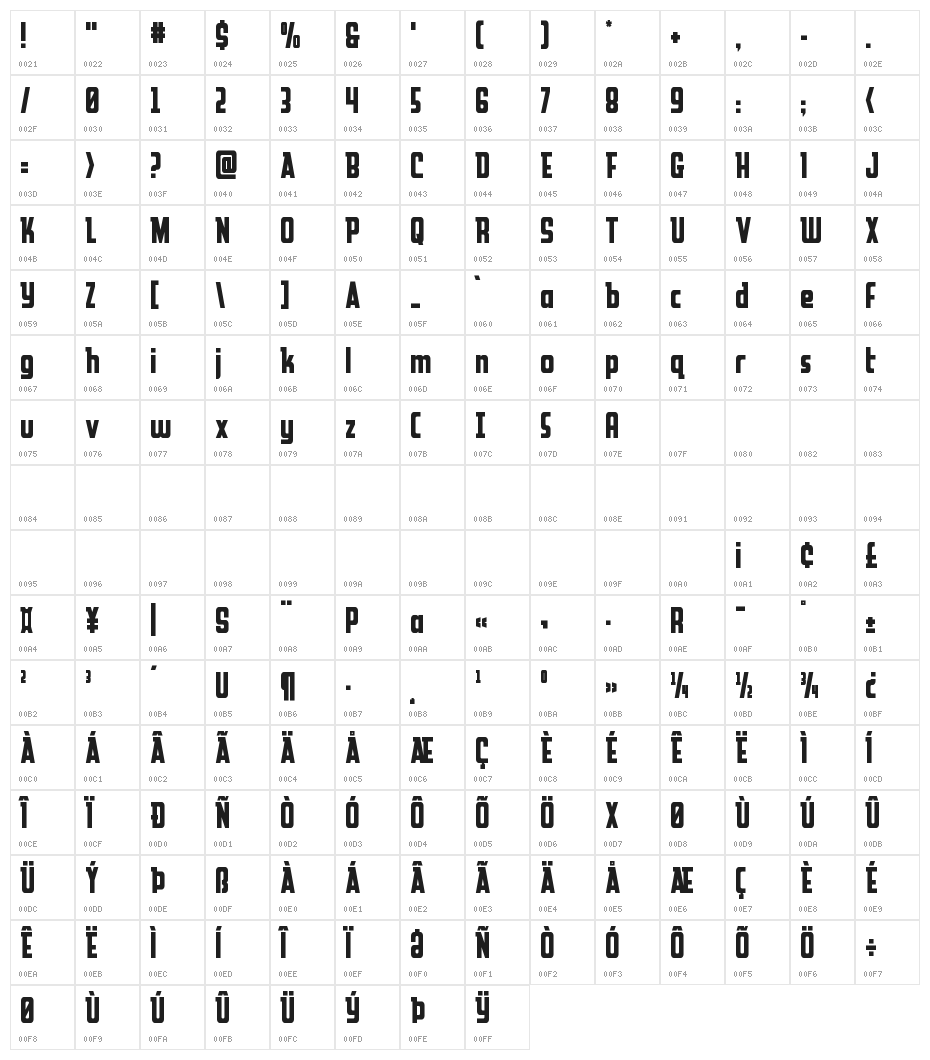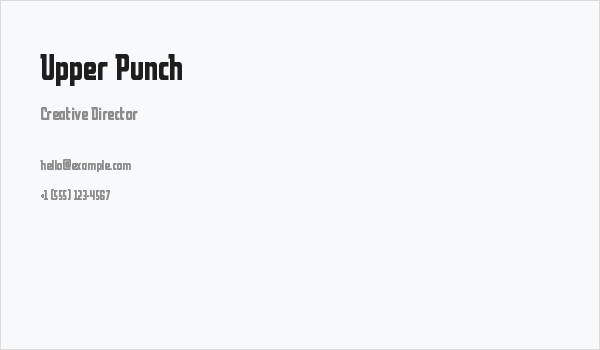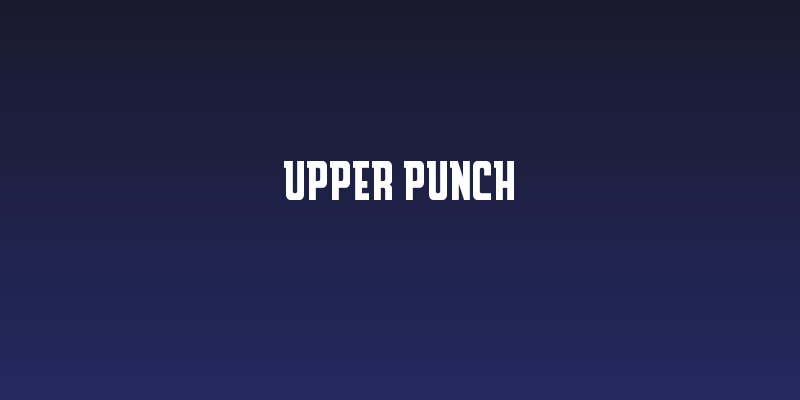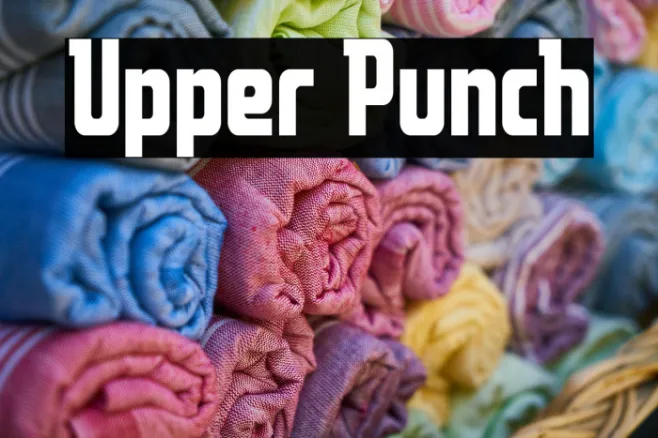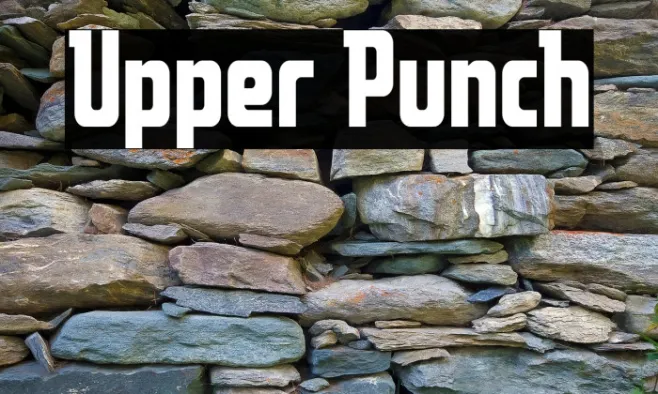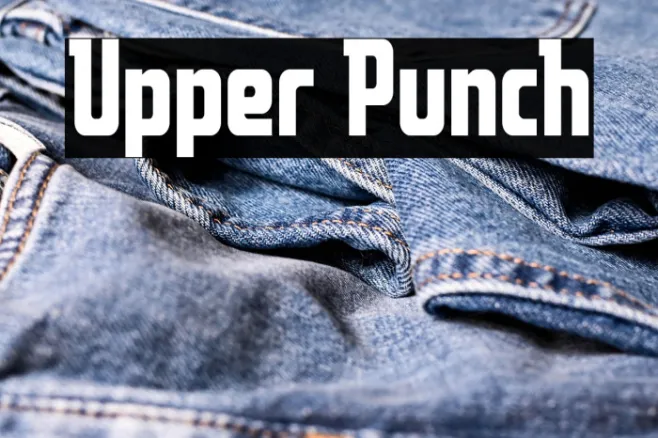
Upper Punch Font
Upper Punch Description
This font features a bold and impactful design, characterized by its strong geometric shapes and uniform stroke widths. The uppercase letters are particularly striking, with a blocky appearance that commands attention. The lowercase letters maintain a consistent style, offering a cohesive look across different text sizes. Numbers and special characters are designed with the same boldness, ensuring readability and visual harmony. The overall aesthetic is modern and assertive, making it ideal for projects that require a strong visual presence.
| Proposed Projects | Ideal for headlines, posters, branding materials, and any design requiring a strong, impactful presence. |